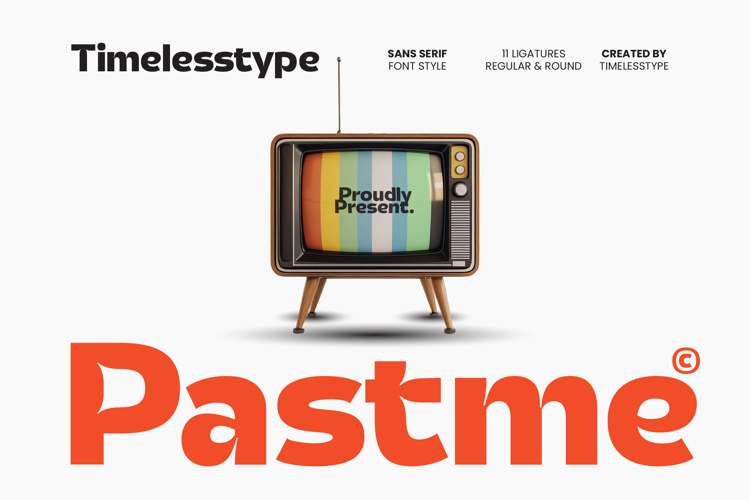
Pastme - Modern Sans Serif Display
Pastme - Modern Sans Serif Display , Pastme is a clean modern sans serif inspired by retro broadcast typography, blending soft geometric forms with smooth rounded terminals to create a friendly, confident, and versatile visual voice. Designed with balanced proportions, subtle character personality, and 11 crafted ligatures, Pastme works effortlessly across branding, packaging, editorial layouts, digital interfaces, and nostalgic-themed visuals. Its Regular and Round styles offer flexibility for both bold headlines and approachable body text, making it an all-purpose toolkit for designers who need clarity, simplicity, and timeless style in one professional font family.
Ligature 11 Alternate